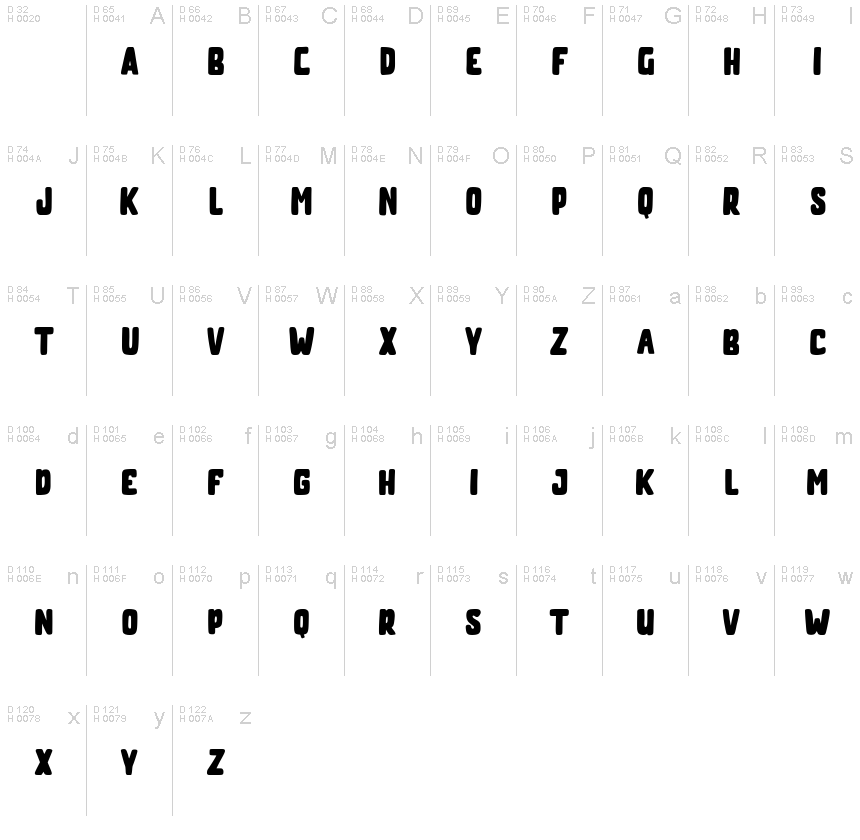
Milesheart Free Font Regular
Milesheart font by Maulana Creative is a bold display typeface that brings playful cartoon style to your designs. Its striking, whimsical shapes and smooth edges make it perfect for eye-catching projects. This free font is ideal for children's books, logos, posters, and playful branding that demands attention and creativity.
With its bold design, Milesheart font ensures legibility while adding a fun, dynamic touch to any visual content. Download the Milesheart free font today to infuse your projects with lively charm and captivating style, making it an excellent choice for designers looking to create memorable visuals.